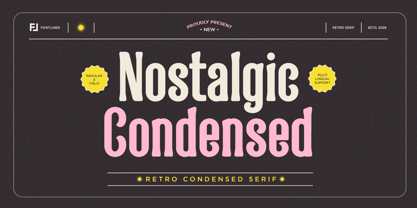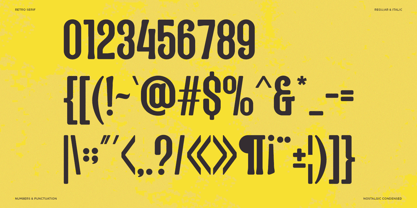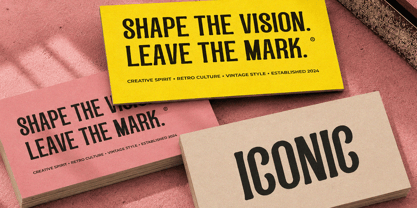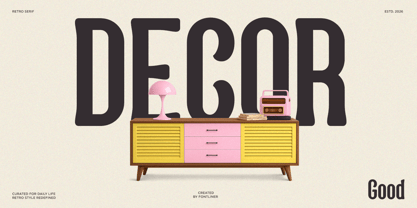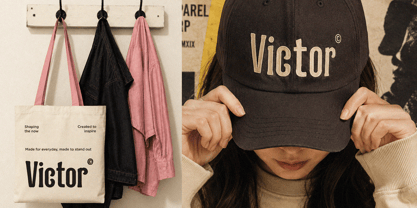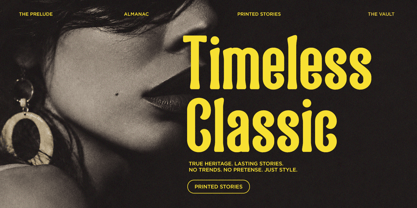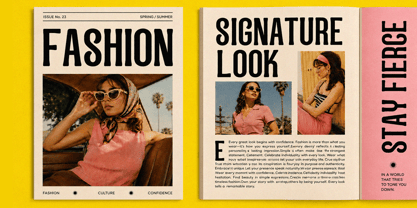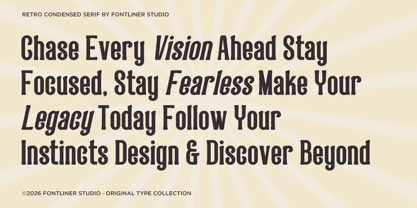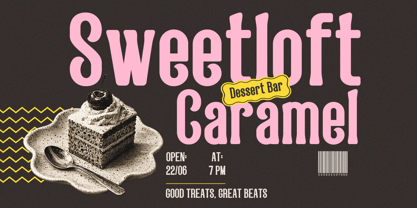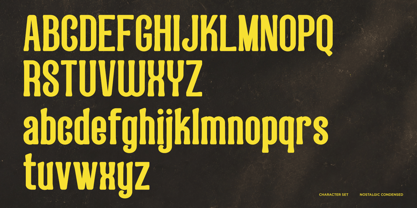
Nostalgic Condensed
Nostalgic Condensed is a retro condensed serif font inspired by classic vintage typography with a fresh contemporary touch. Featuring bold curves, tall proportions, and distinctive serif details, this typeface brings timeless charm and character to every design. It is carefully crafted to deliver a nostalgic atmosphere while maintaining excellent readability and visual impact for modern creative projects.
Perfect for branding, logos, packaging, editorial layouts, posters, labels, restaurants, cafés, music merchandise, magazine covers, and advertising campaigns, Nostalgic Condensed adds an authentic retro personality that stands out across both print and digital media. Its condensed structure allows you to create eye-catching headlines while maximizing space without sacrificing style.
Whether you're designing vintage-inspired branding or contemporary retro visuals, this font provides the perfect balance of classic elegance and modern functionality.
• Regular and Italic Style
• Uppercase and Lowercase
• Number, Symbol, and Punctuation
• Multilingual Support